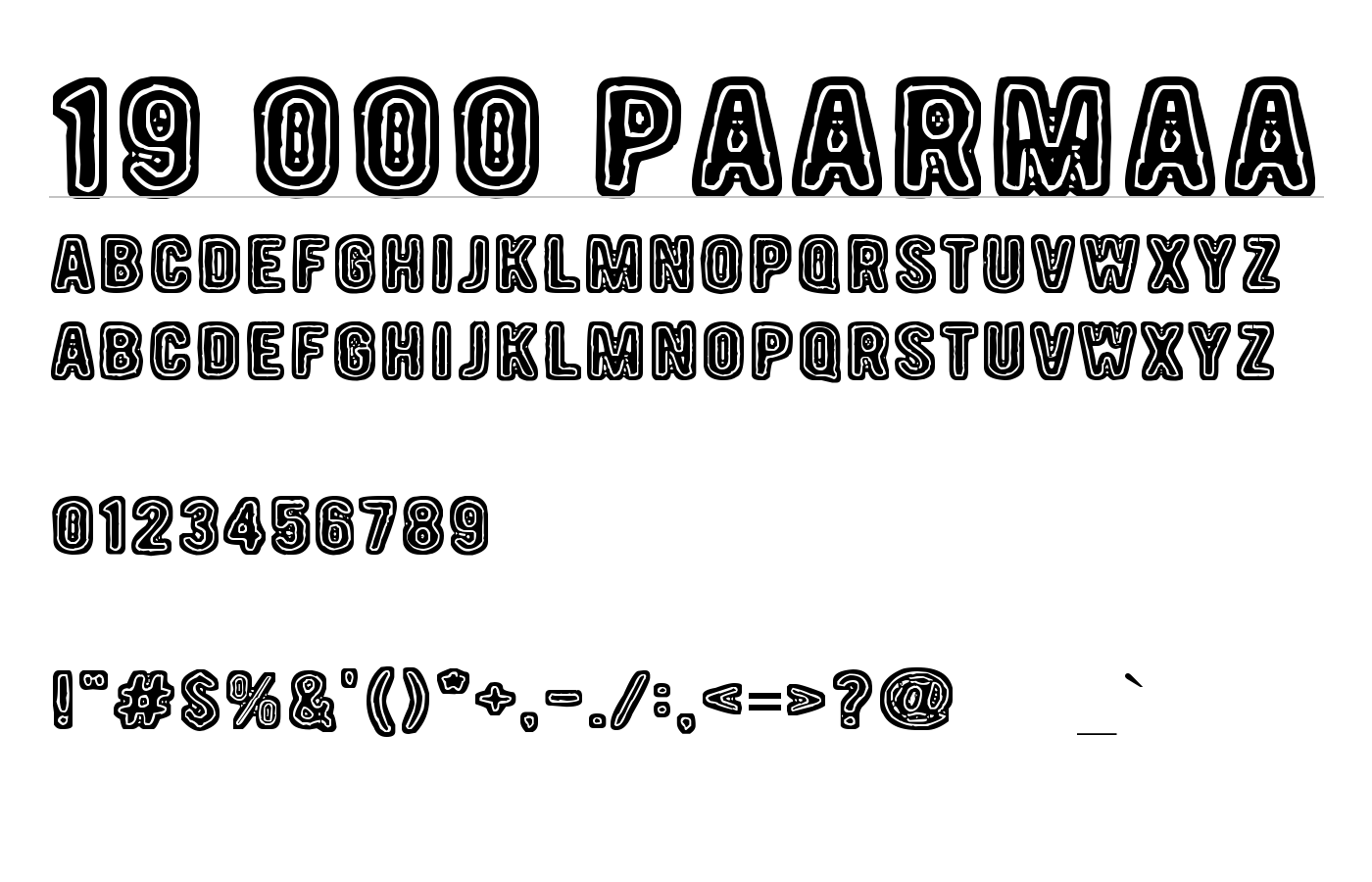
19 000 paarmaa is a playful, bold display font with a hand-drawn, outlined style that adds a quirky and informal vibe. Its rounded, slightly irregular letterforms and layered outlines give it a lively, cartoonish personality, making it ideal for fun, eye-catching headlines and creative branding. This font works best in contexts that want to evoke energy and uniqueness, such as posters, packaging, or children's products.
19 000 paarmaa Font
About 19 000 paarmaa Font